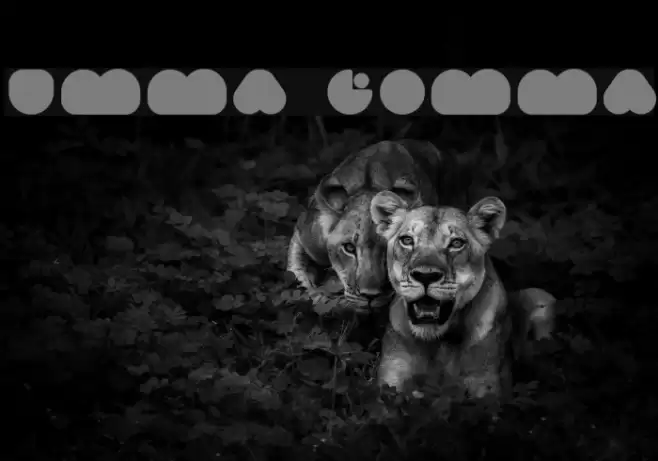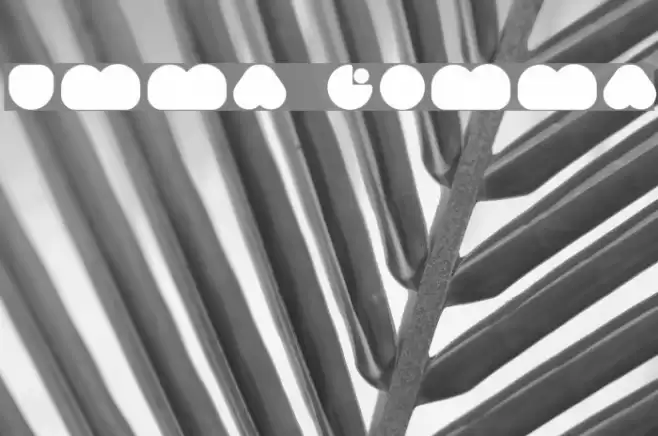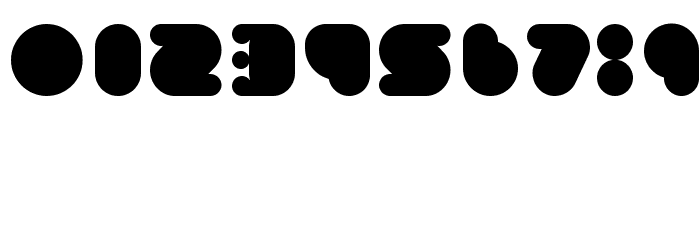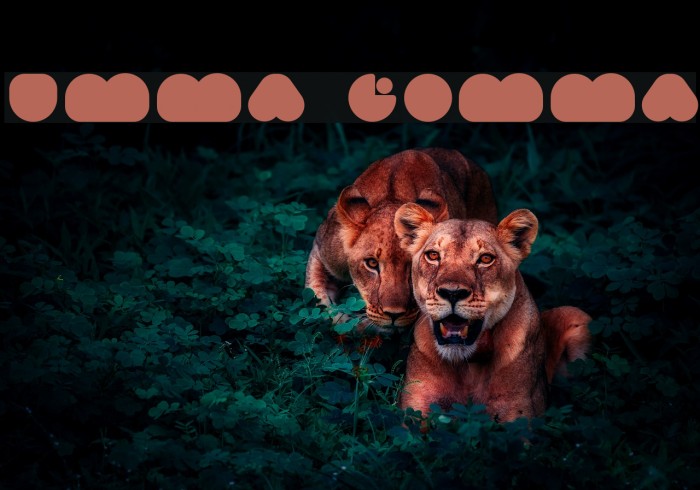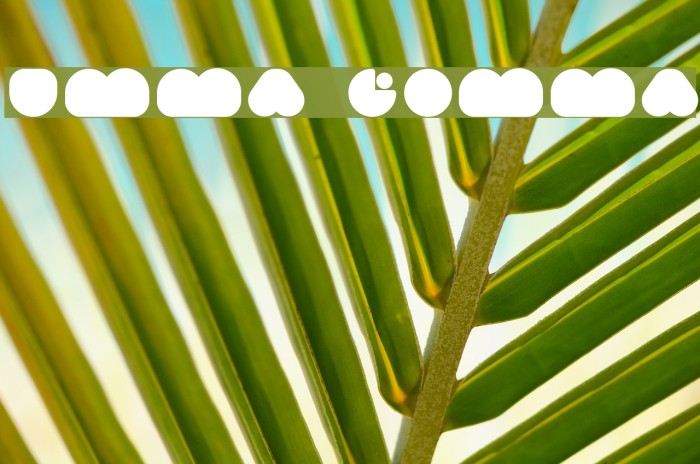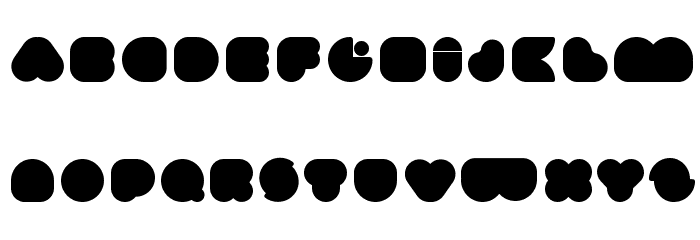
Umma Gomma Font
Umma Gomma Description
This font features a bold, playful design with rounded, bubble-like shapes that give it a distinctive and whimsical appearance. The characters are heavily stylized, with thick strokes and a consistent weight throughout. The font's unique structure makes it stand out, with each letterform exhibiting a sense of fun and creativity. The rounded edges and uniform thickness contribute to its approachable and friendly vibe, making it ideal for projects that require a touch of humor or lightheartedness. The font's design is consistent across uppercase, lowercase, and numeral characters, ensuring a cohesive look.
A bold, playful font with rounded, bubble-like shapes and a whimsical style from Uncategorized fonts.
- Proposed Projects: Ideal for children's books, playful branding, party invitations, and creative posters.
- Overall Style: Playful